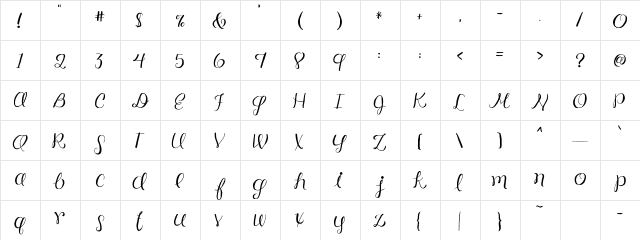
FB Meadow FB Meadow
Design Context for FB Meadow Typeface
FB Meadow is a composed and adaptable typeface that performs quietly and consistently across a wide range of design contexts.